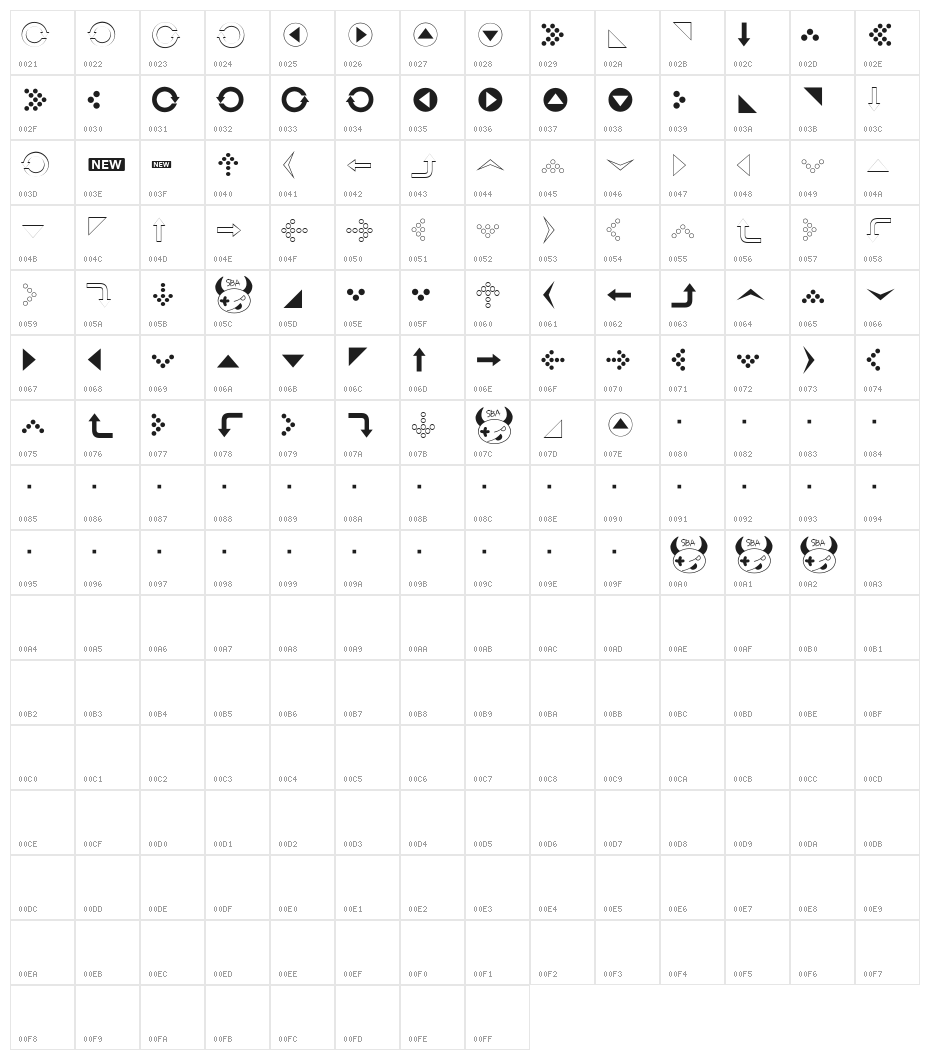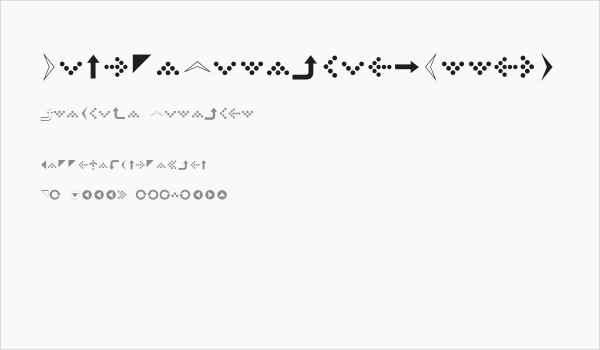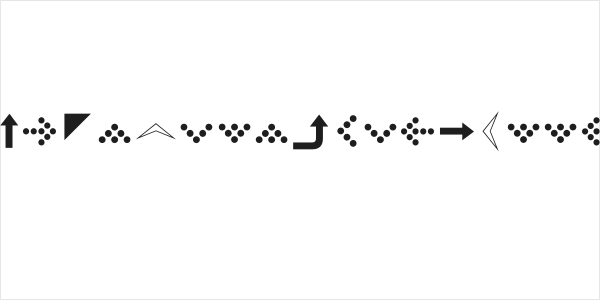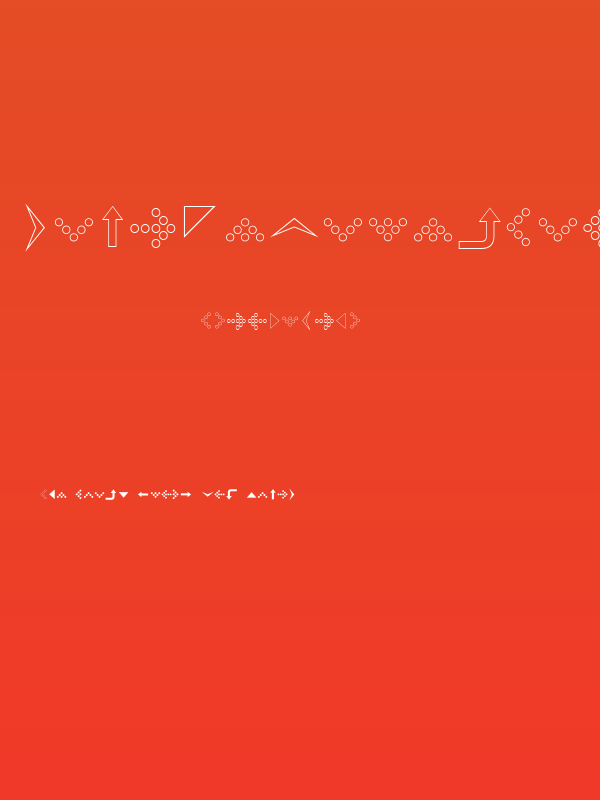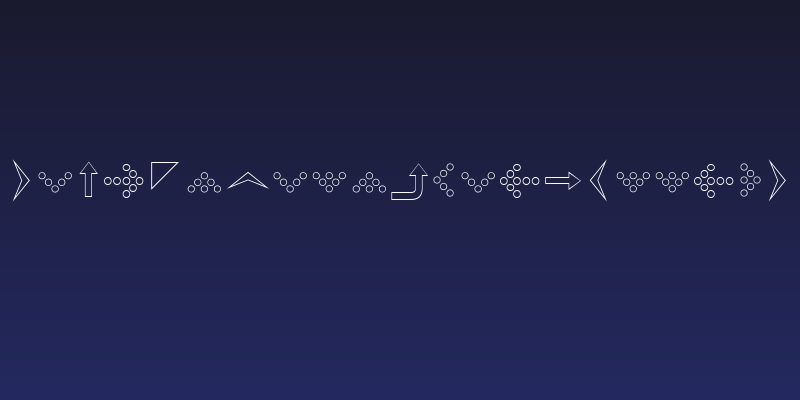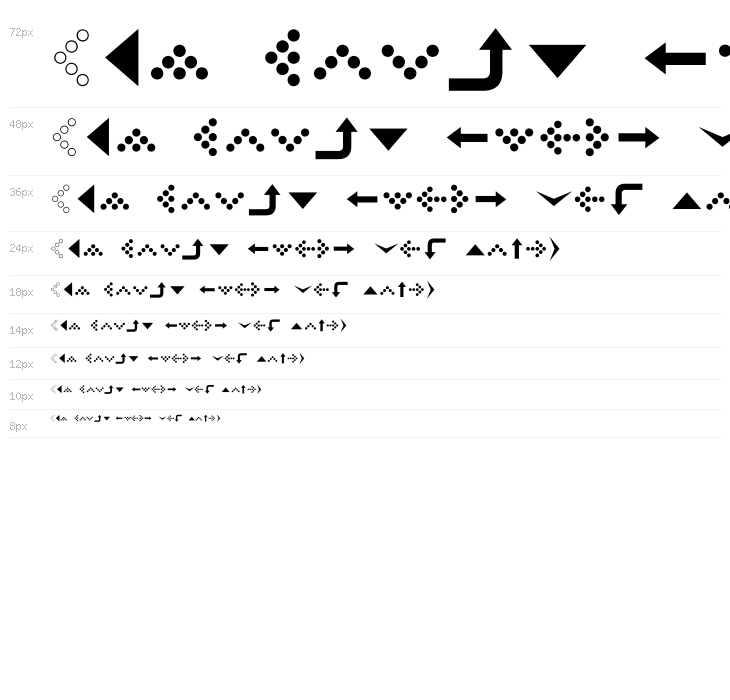
SimpleDirectionArrows Font
SimpleDirectionArrows Description
This collection features a variety of directional arrow designs, each with a unique style. The arrows range from simple linear forms to more complex shapes with dotted patterns. Some arrows are enclosed in circles, while others are standalone. The designs include both filled and outlined styles, providing versatility for different visual needs. The arrows are presented in different orientations, including left, right, up, and down, making them suitable for navigation purposes. The use of geometric shapes like triangles and circles adds a modern and clean aesthetic to the collection.
| Use Case | Icons, Navigation, Signage |
| Proposed Projects | Ideal for user interface design, wayfinding systems, infographics, and educational materials. |